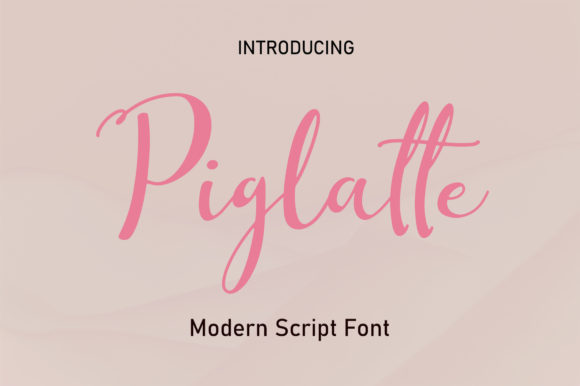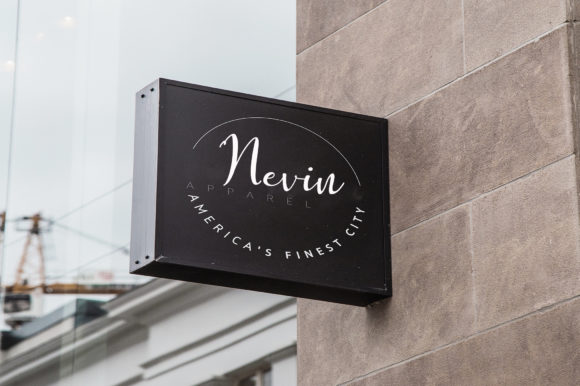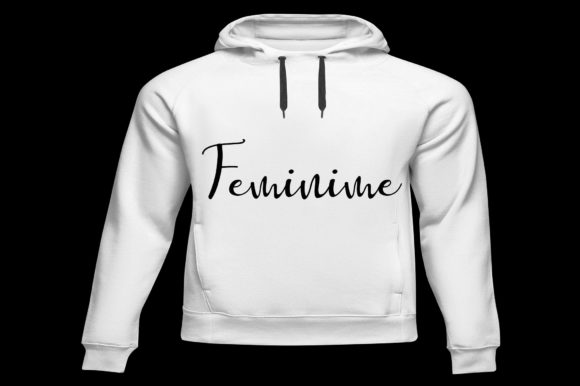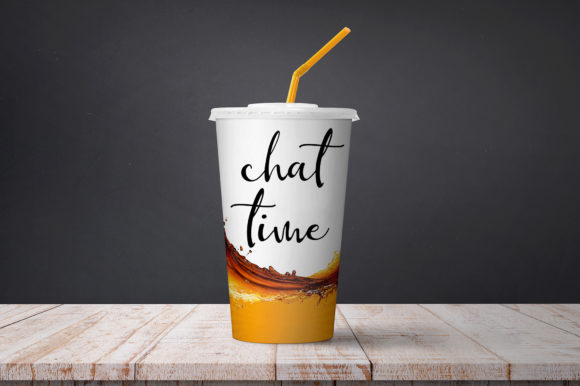
About Piglatte Font
Piglatte is a handwritten script font with a classic calligraphy style. The smooth Pigaltte font works great on greeting cards, wedding invites, birthday cards, and much more. Add this lovely font to your creations and take your designs to the next level!